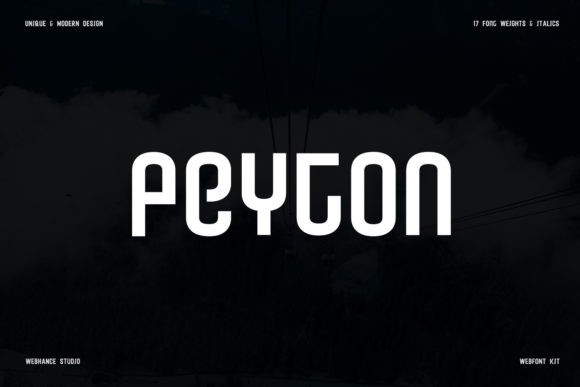
Get ready to transform your digital designs with the awe-inspiring Peyton Font, a masterpiece crafted by the visionary minds at Webhance. This display font is not just a collection of characters; it's an artistic gateway to a world of creativity and boundless expression.
Unleash the captivating power of Peyton Font and watch your designs come alive with its bold and techno-infused aesthetics. Let your imagination soar as you craft logos that demand attention, headlines that ignite curiosity, and social media posts that leave an unforgettable mark.
With Peyton Font as your creative companion, you'll effortlessly elevate your digital presence, captivating audiences with every visual masterpiece you create. Whether it's a stunning website banner, an eye-catching product brochure, or an immersive social media campaign, Peyton Font will make your designs shine brighter than ever before.
Dive into the endless variations of Peyton Font and discover a treasure trove of possibilities. Experiment with different weights, styles, and colors to create a personalized typographic symphony that resonates with your unique brand identity.
Peyton Font is more than just a font; it's an invitation to unleash your creative genius and leave an indelible mark on the digital world. Embrace the boundless possibilities it offers and let your designs speak volumes, captivating hearts and minds with every stroke.